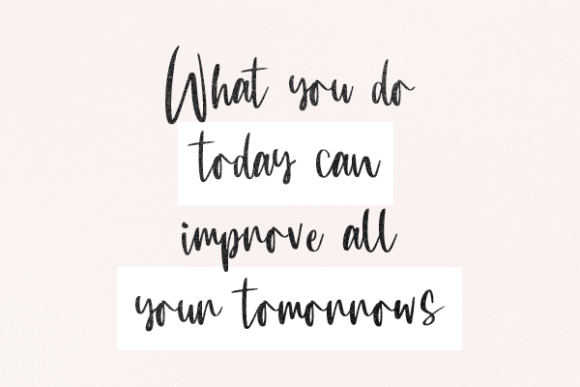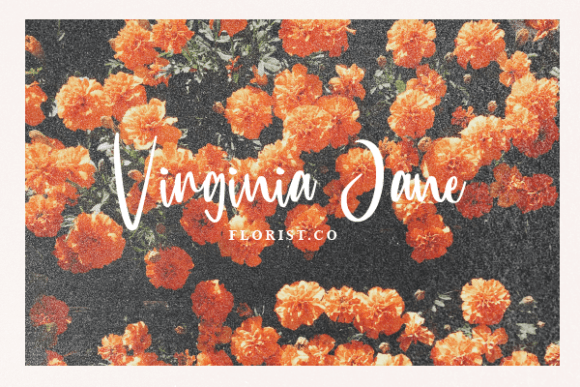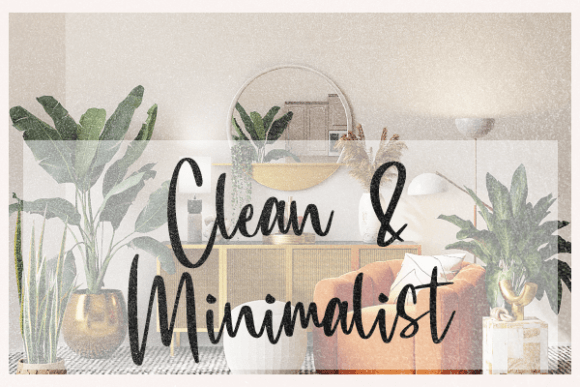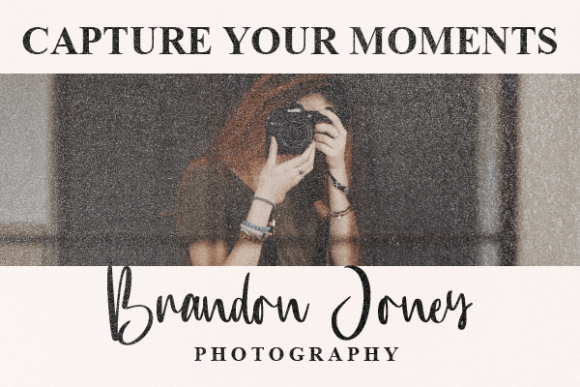
Graham Metcalfe
About Graham Metcalfe
Graham Metcalfe is a lovely and timeless handwritten font. It is the best choice for creating eye catching logos, branding and quotes. Every letter has a unique and beautiful touch, which will make your design come alive!